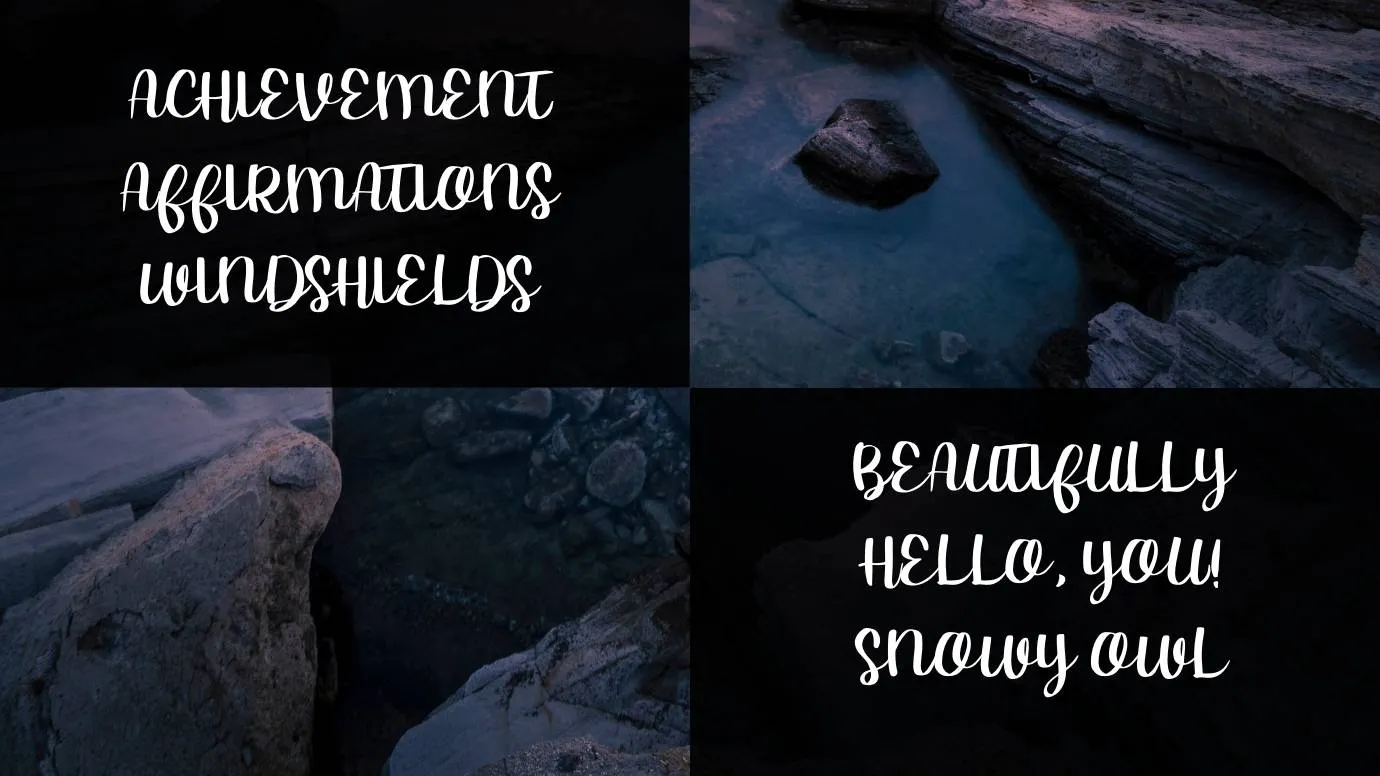
Chasy Font is a group member of the script typeface family, the style of this texture is calligraphy. This is a font is released in 2004. It is heavily based on calligraphy and features very expressive letterforms. This font is a great choice for projects that need a handwritten feel, and it is available in both regular and italic versions.
This Font is a great choice for projects that need a handwritten feel. It can be used for everything from wedding invitations to logos and advertising materials. The font is available in both regular and italic versions, which gives you even more flexibility when designing your project.
Designer of Chasy Font
This new and fashionable style of texture is designed by one of the famous designers which are known, Ahmad Syarif Afandi.
This typeface is released with a single style, this regular style consists of glyphs, numbers, capital and small letters, punctuation, a set of characters, and a large number of language support.
| Name | Chasy Font |
| Style | Calligraphy |
| Designer | Ahmad Syarif Afandi |
What is a Chasy Font?
This font is a group member of the script typeface family, the style of this texture is calligraphy. This is a font is released in 2004. It is heavily based on calligraphy.
What font is close to Chasy Font?
This is one of the script typeface fonts, which have so many similarities but, the most pairing font to this texture is Wakanda Font.
Is Chasy Font a good font?
Yes, this font is a good font for logos. It features very expressive letterforms that can help you create a unique and memorable logo. The font is also available in italic version, which can give your logo an extra bit of flair.